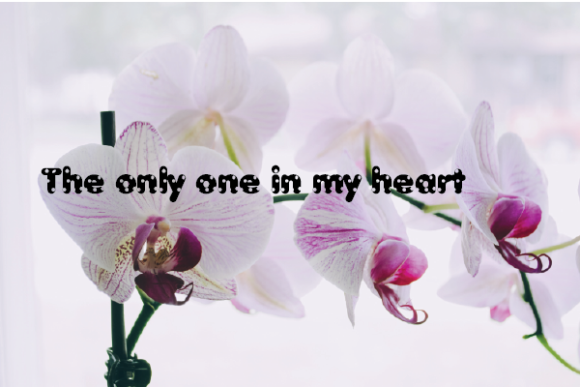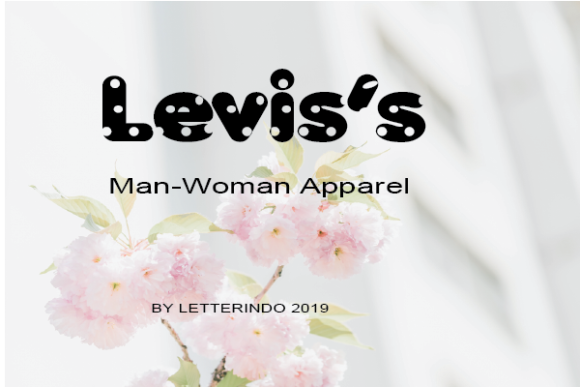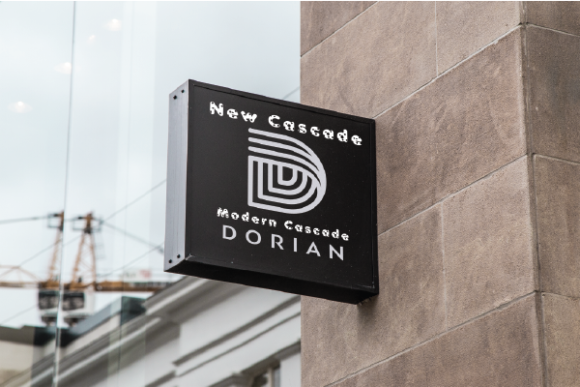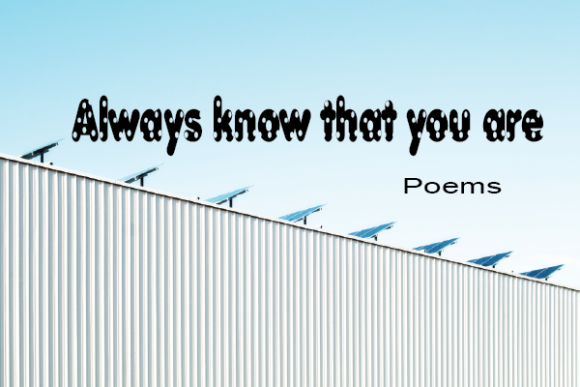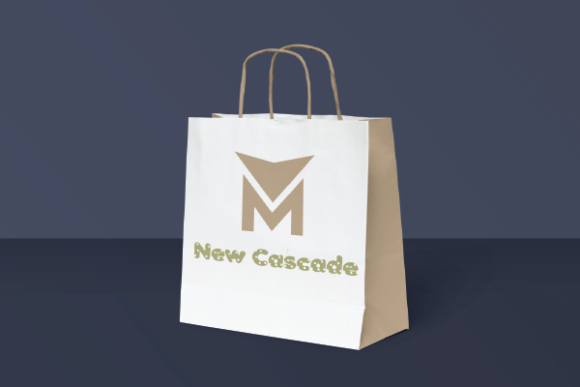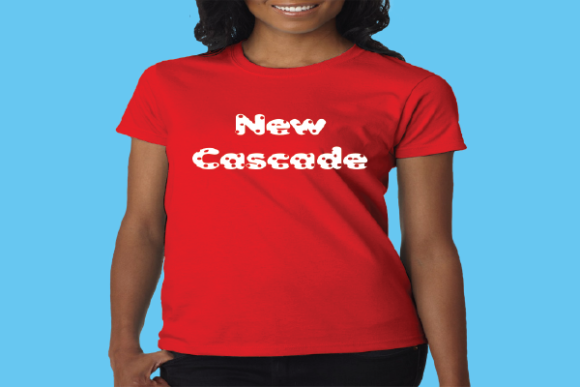
Introduction to New Cascade Font
New Cascade is a playful display font.
It features dot-themed characters that will look amazing in your crafting projects Get inspired by its authentic feel and use it to create gorgeous greeting cards, beautiful stationary art and eye-catching social media posts.
Key Features of New Cascade Font
Why Choose New Cascade Font?
New Cascade Font offers exceptional quality and versatility, making it a valuable addition to your design toolkit. Whether you’re creating for personal projects or commercial use, New Cascade Font delivers professional results.